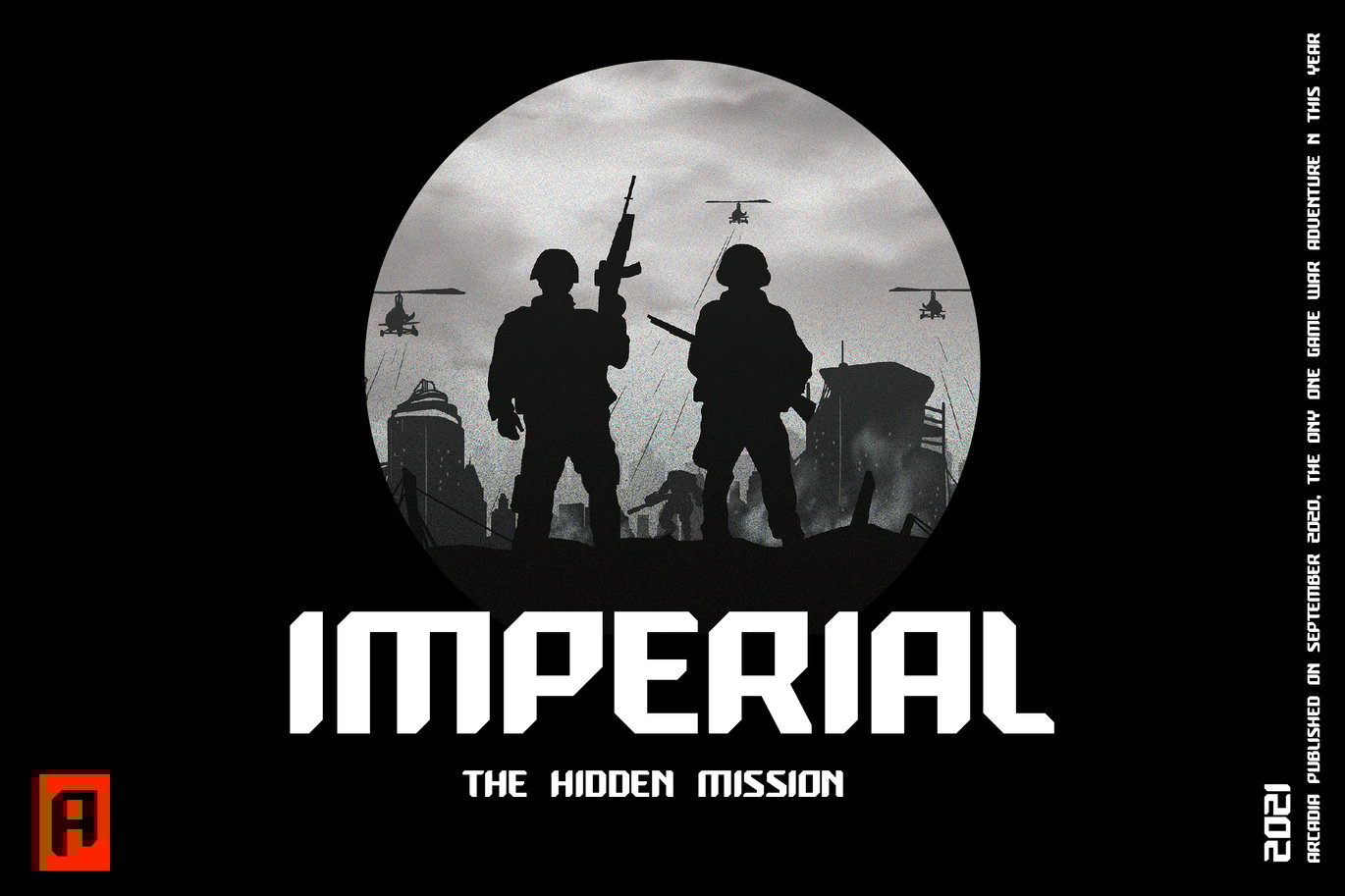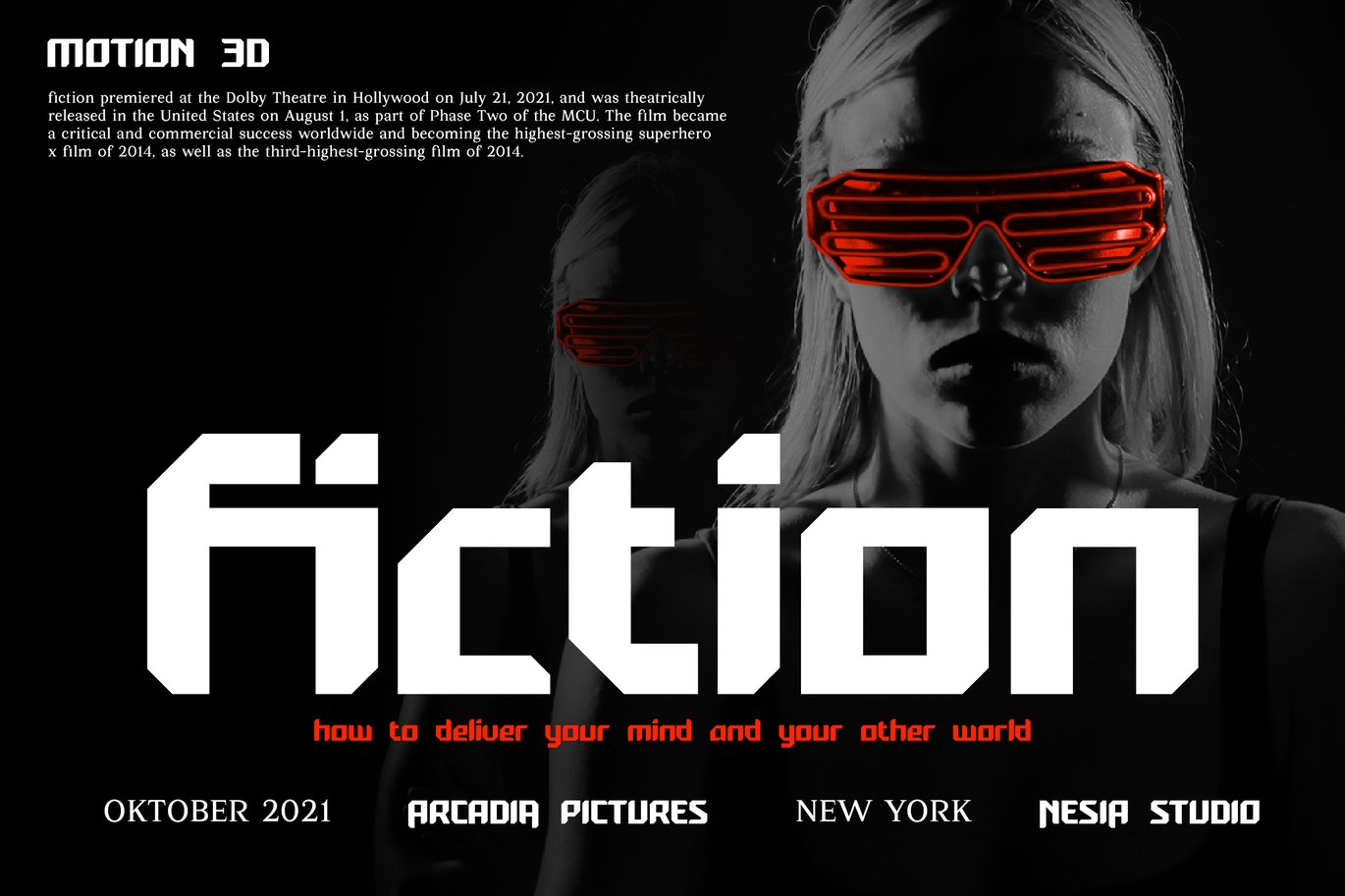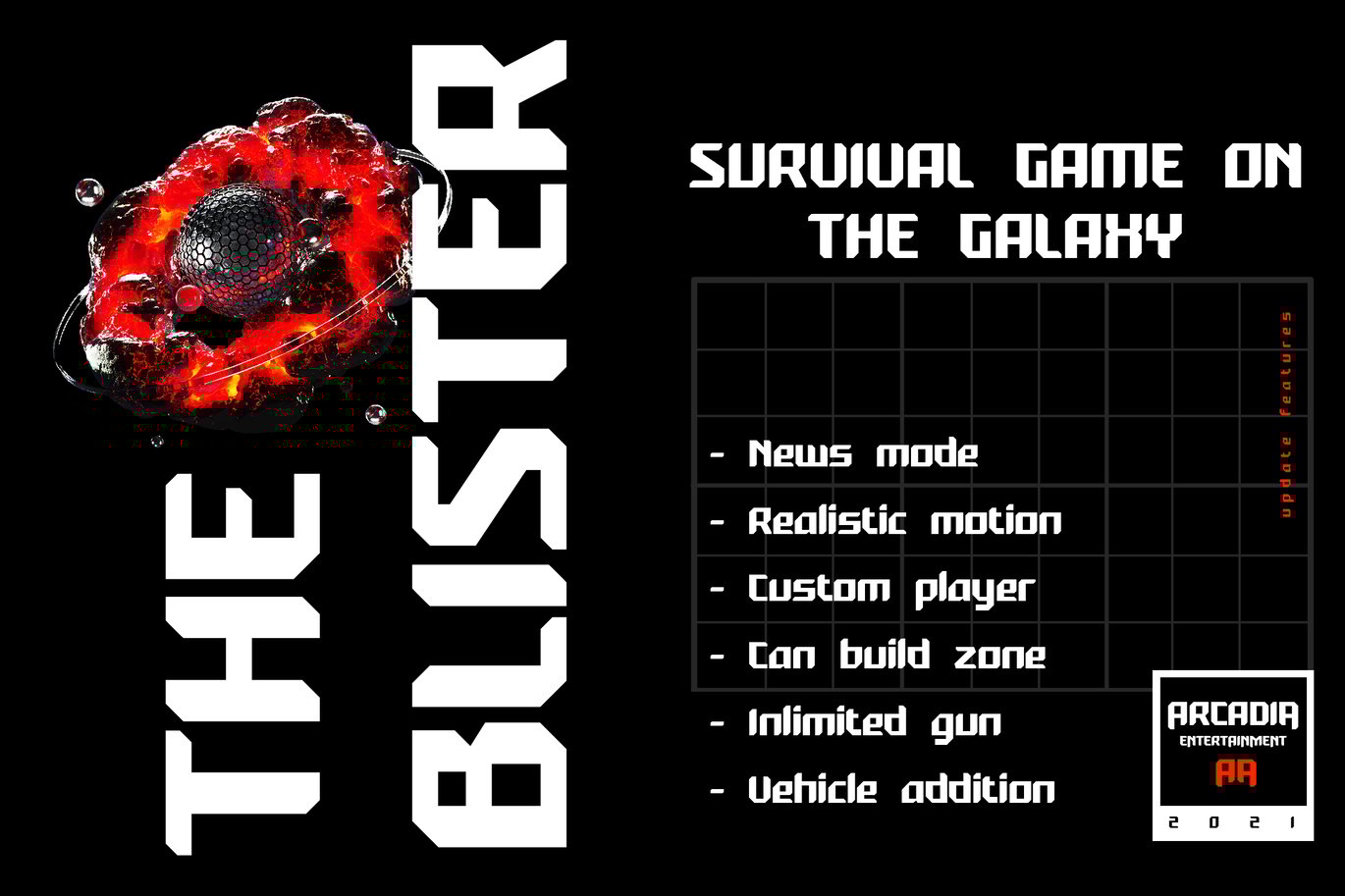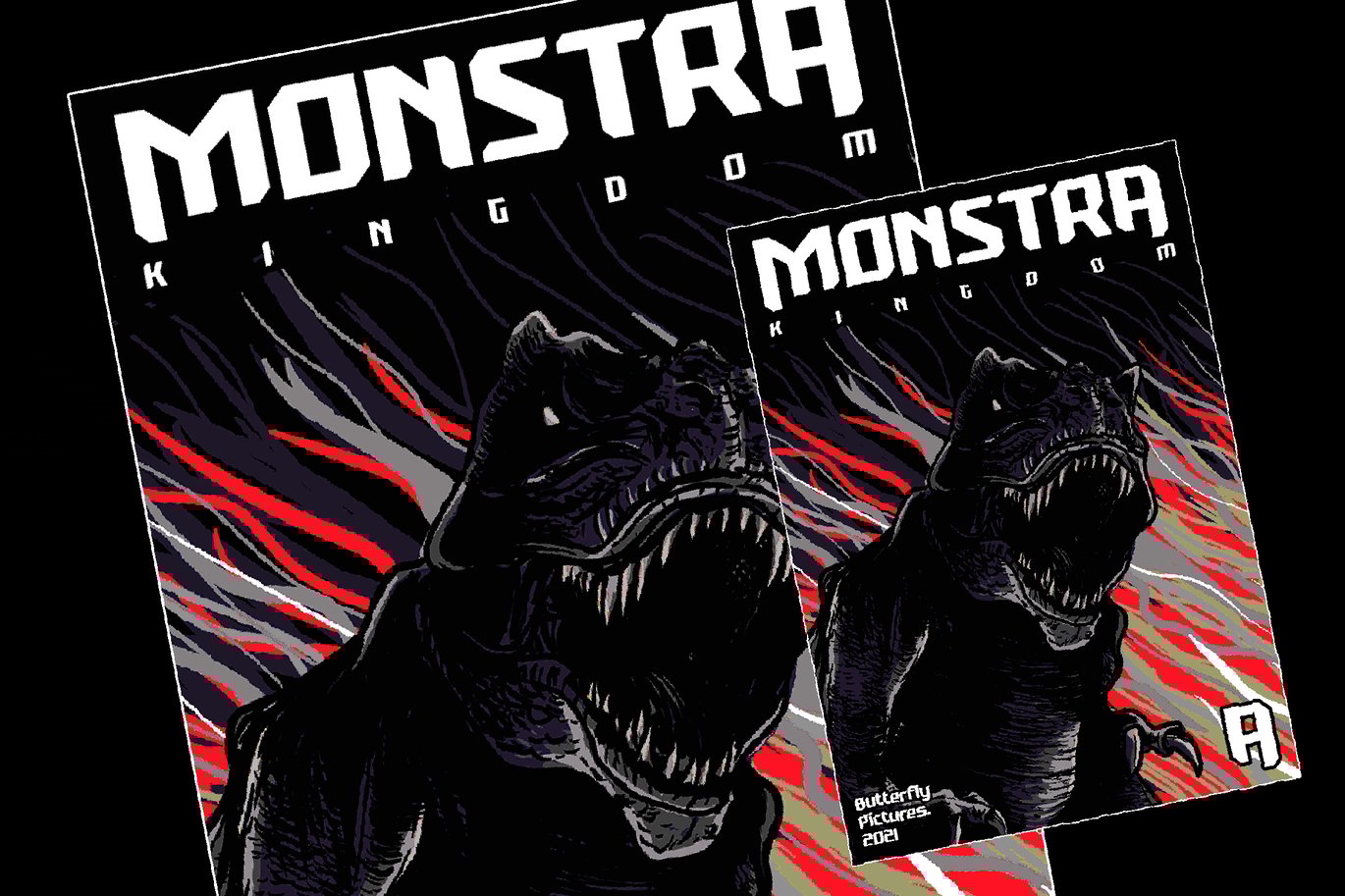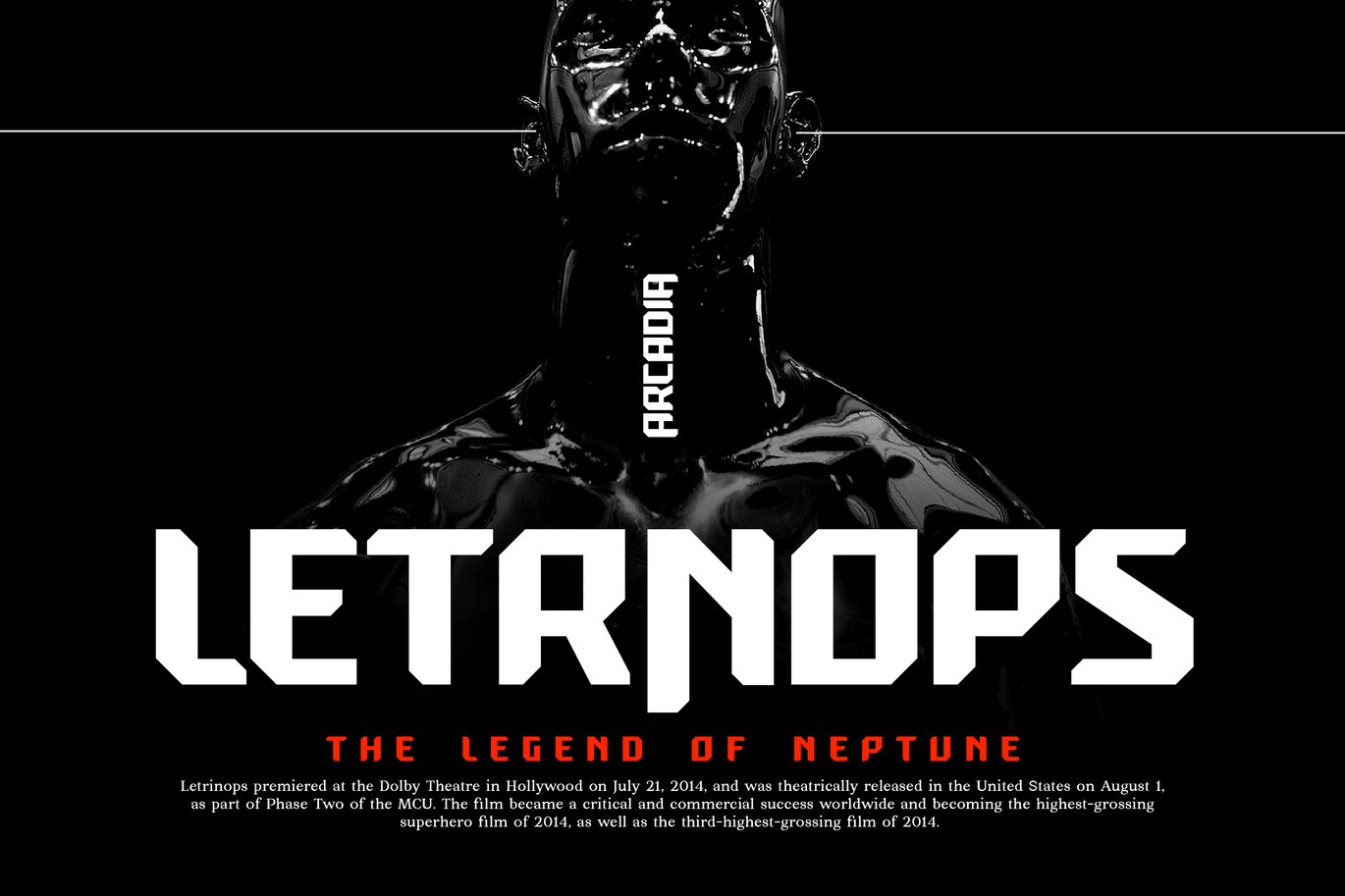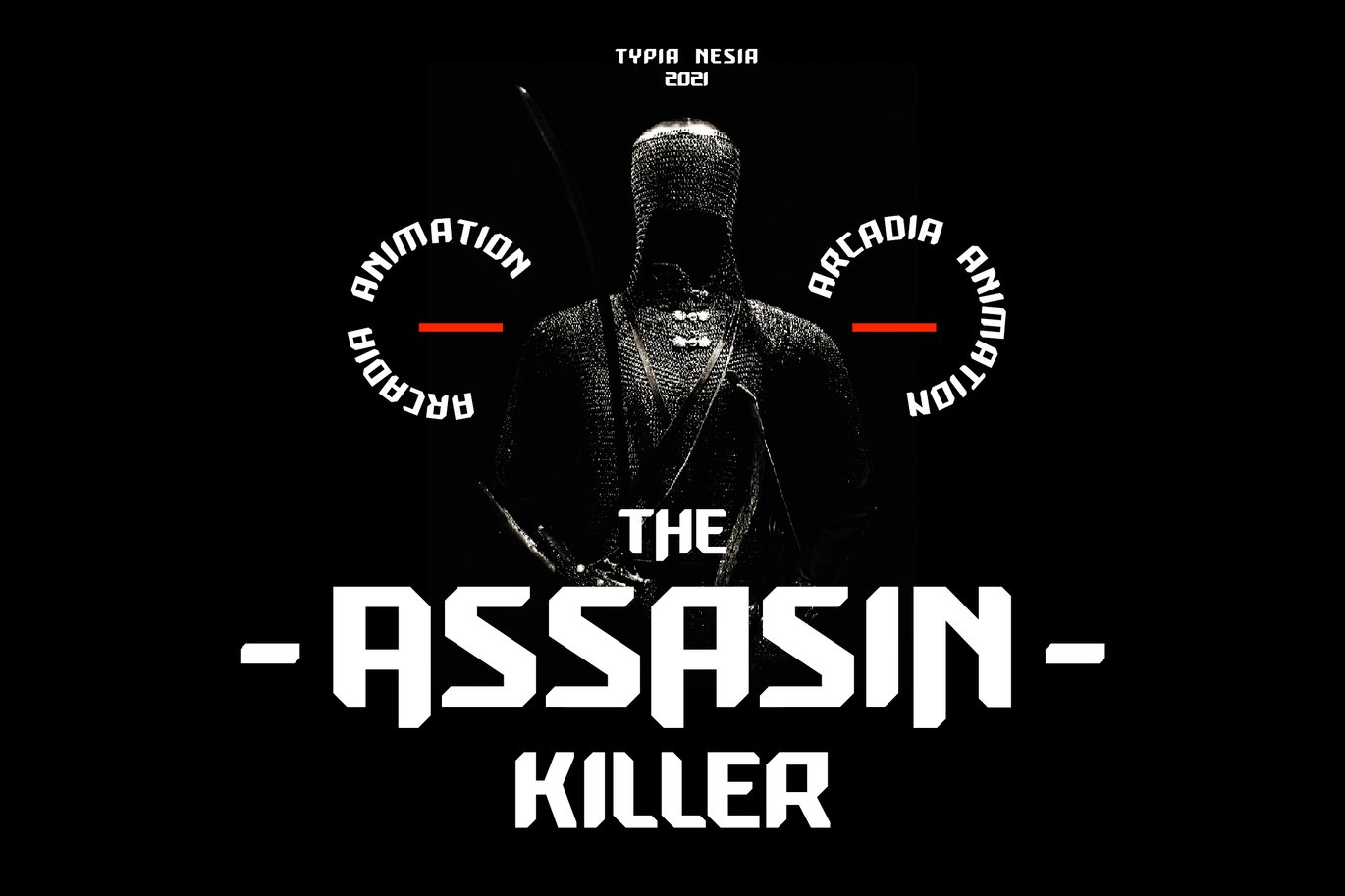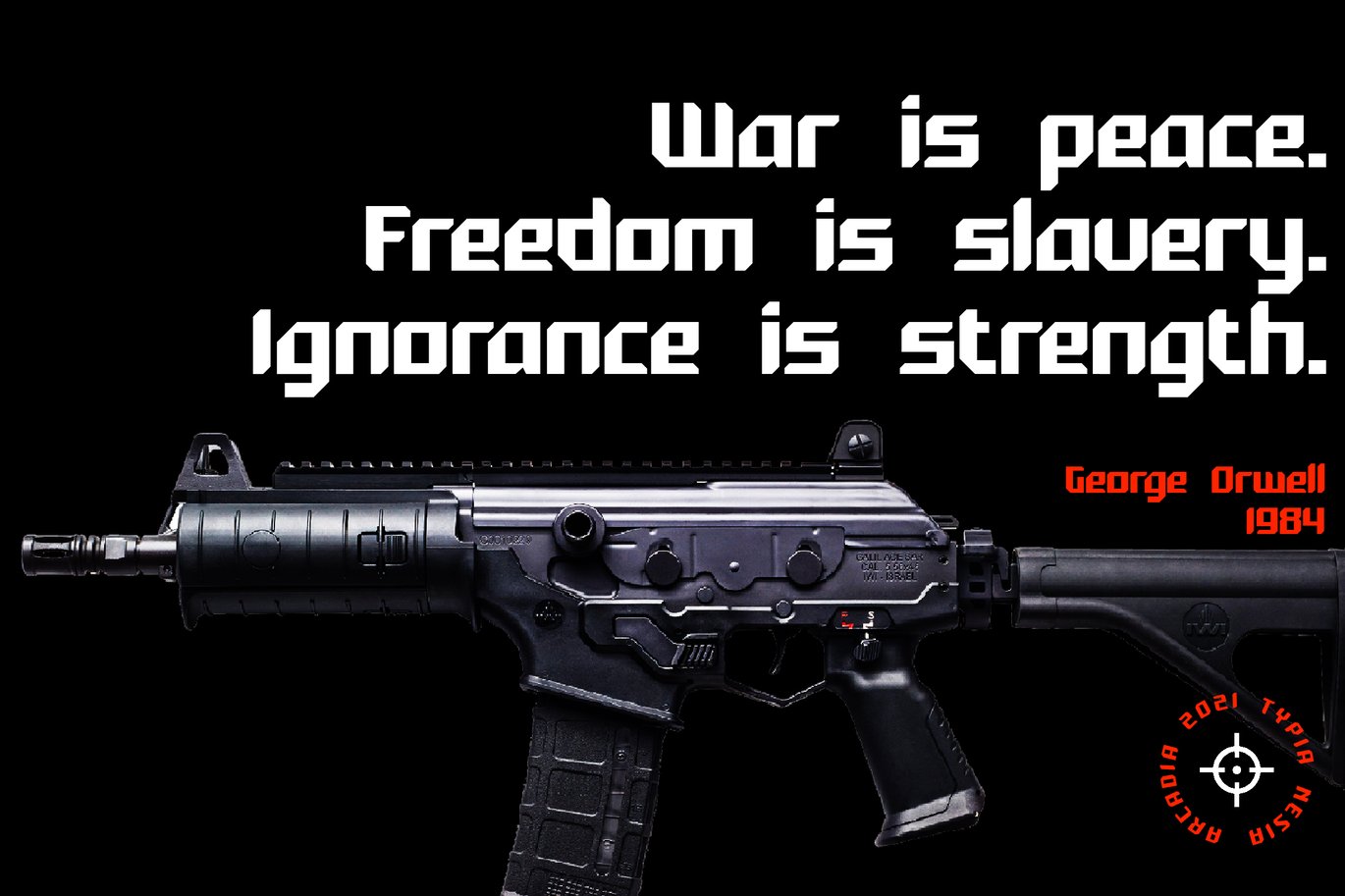
Arcadia – Scifi Game Font
Arcadia – Scifi Game Sans Serif Font
Arcadia – Sporty Game Sans Serif Display Font is perfect for your up coming projects. Such as logo branding, editorial design, stationery design, esport design, 80s retro design, game industry, sport racing, super car brand, music poster, blog design, modern advertising design, card invitation, art quote, home decor, book/cover title, special events and any more.